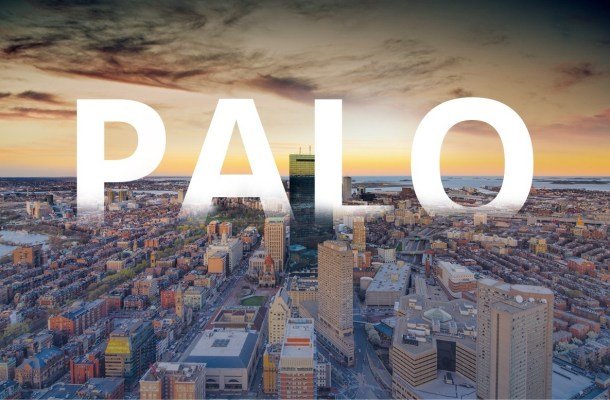
Palo Sans Serif Typeface
Palo Sans Serif Typeface is a modern & clean sans-serif typeface with a touch of modernism and simplicity added to the design. It’s a perfect typeface for graphic design, web, print and any display use.The typeface could be perfect choice for logo / logotype design, branding, marketing graphics, banners, posters, signage, corporate identities as well as for editorial design.